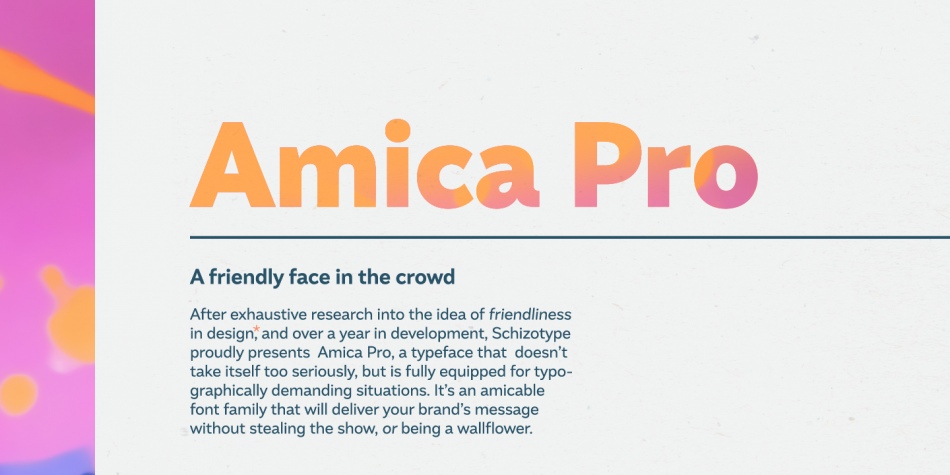
Amica Pro Font
Amica Pro Font is perfect for friendly business communications, healthcare provider branding, community service organizations, educational institution materials, welcoming hospitality campaigns, caring professional services, social work presentations, and compassionate nonprofit marketing.
What makes Amica Pro Font exciting is its warmly professional character that embodies genuine friendship and caring expertise through approachably crafted letterforms that balance professional competence with human warmth and authentic compassion. The font features harmonious proportions with friendly details that reflect the perfect balance between professional credibility and personal connection, creating typography that feels both trustworthy and genuinely caring. Its friendly professionalism and compassionate appeal make it perfect for organizations that want to communicate caring expertise, professional warmth, and the kind of genuine human connection that builds lasting relationships while maintaining the credibility essential for professional success.
Amica Pro Font family includes comprehensive caring weights ranging from Light to Bold, typically featuring Regular, Medium, and Heavy variations with corresponding italic styles. The family often includes compassionate character sets, caring symbols, and professional features that provide maximum flexibility for creating warm yet credible communications across healthcare, education, and social service applications requiring both human warmth and professional authority.